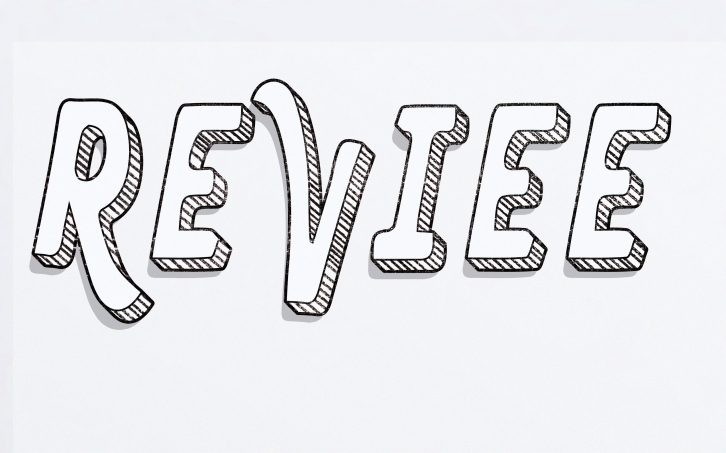
Reviee is a fun and cool handwritten display font. Whether you’re using it for crafts, digital design, presentations, or making greeting cards, this font has the potential to become your favorite go-to font, no matter the occasion!